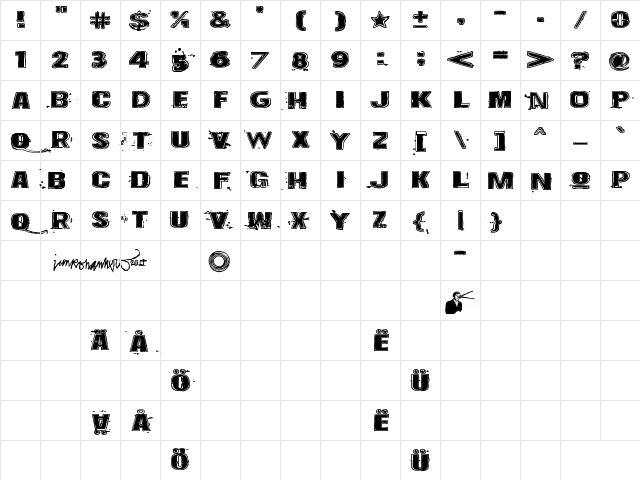
Krakle! Regular Free Font
Krakle! Regular
Design Context for Krakle!
Krakle! is a composed and adaptable typeface that performs quietly and consistently across a wide range of design contexts.